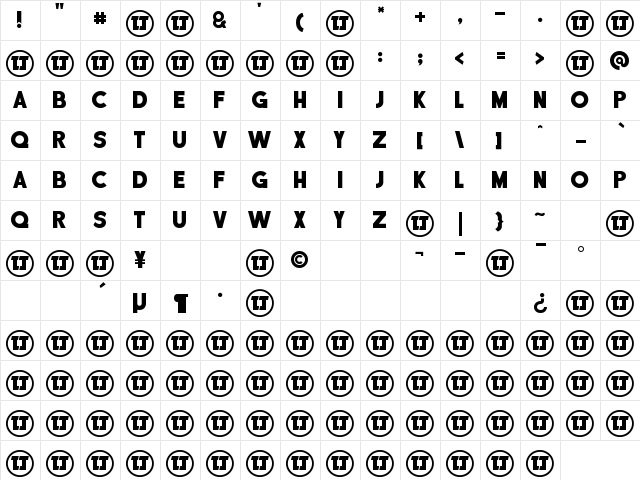
DISCIPLINA PERSONAL USE Regular
| Foundry | LJ-Design Studios |
| Designer | Luis Jaramillo |
Design Context for DISCIPLINA PERSONAL USE Typeface
DISCIPLINA PERSONAL USE is a composed and adaptable typeface that performs quietly and consistently across a wide range of design contexts.